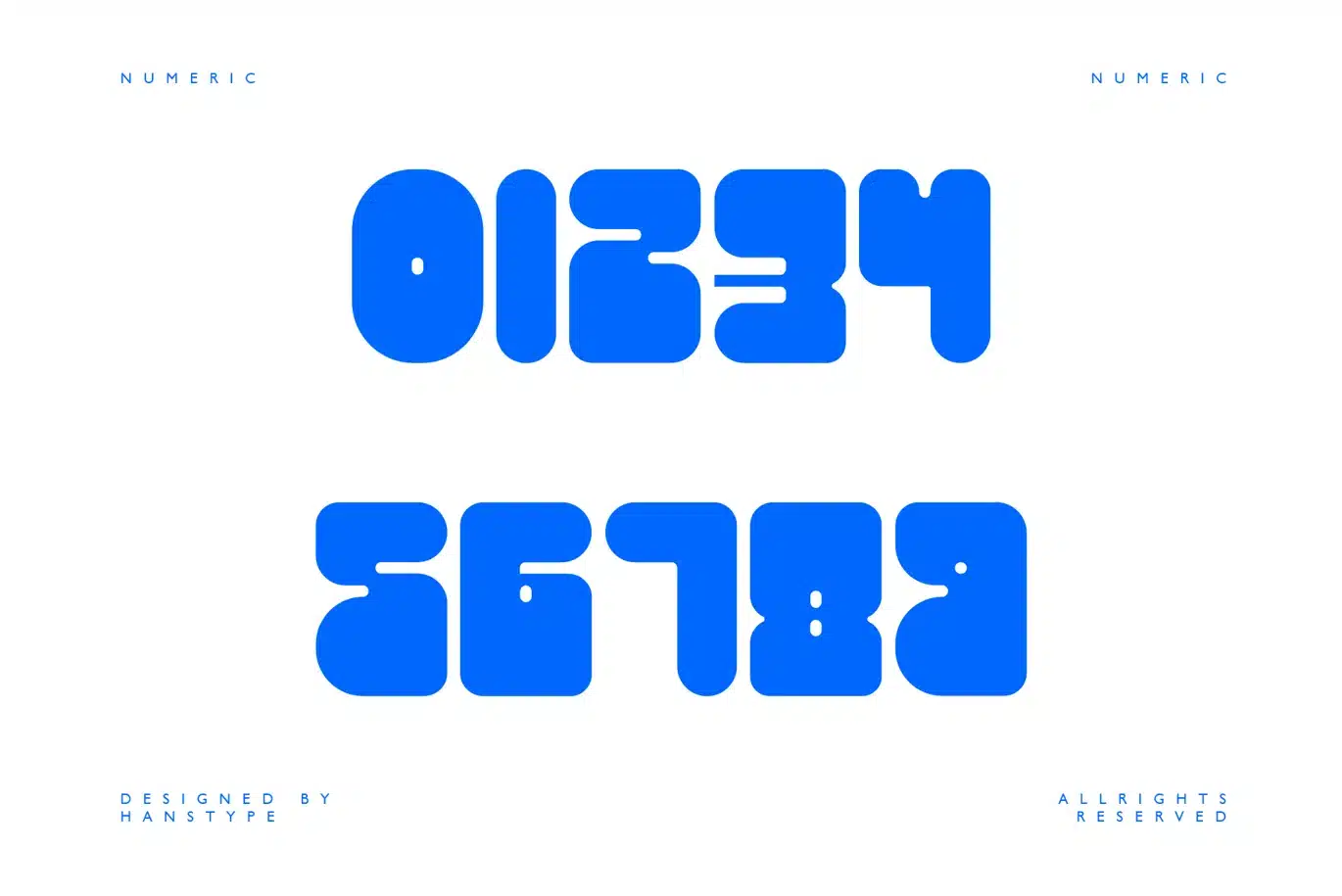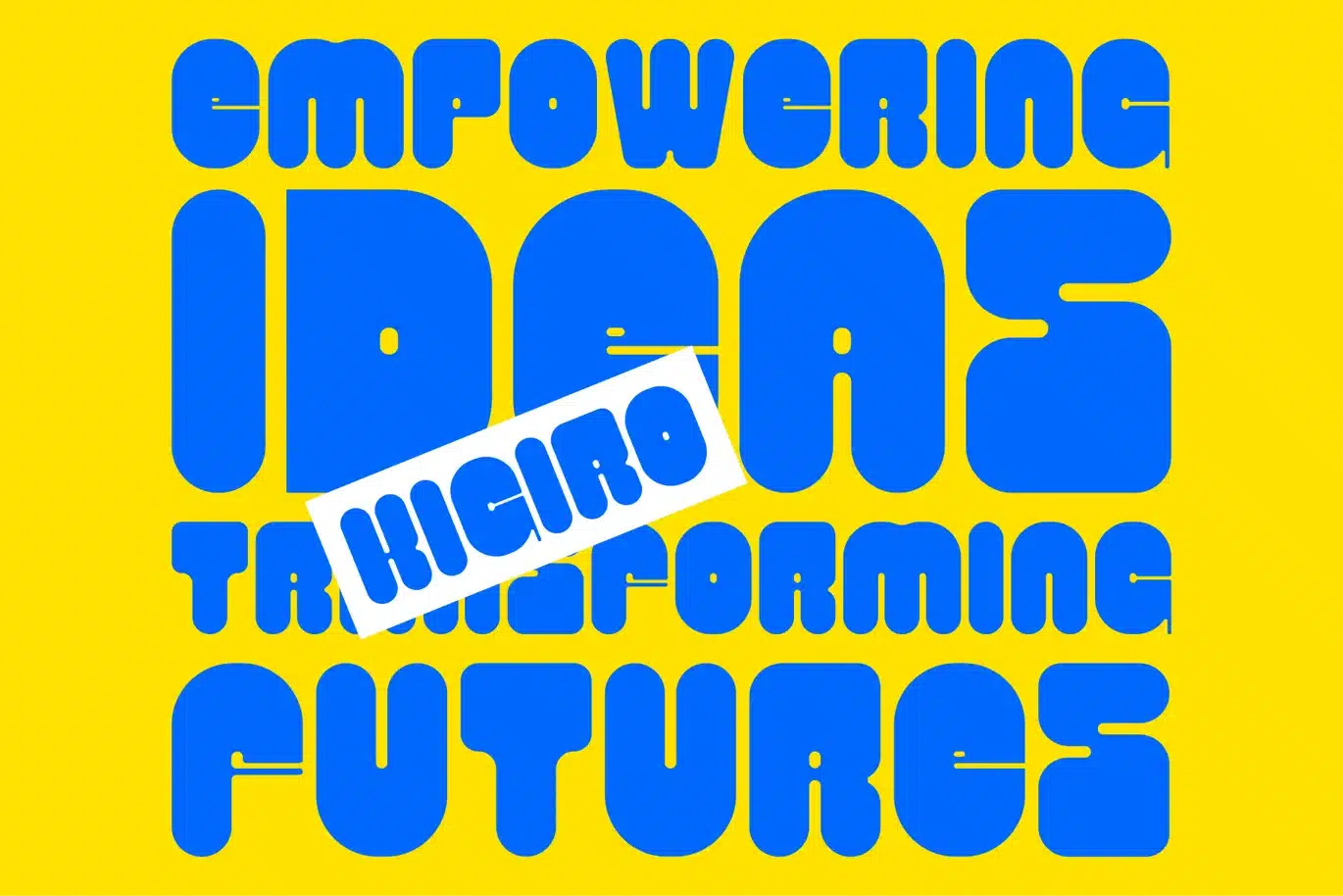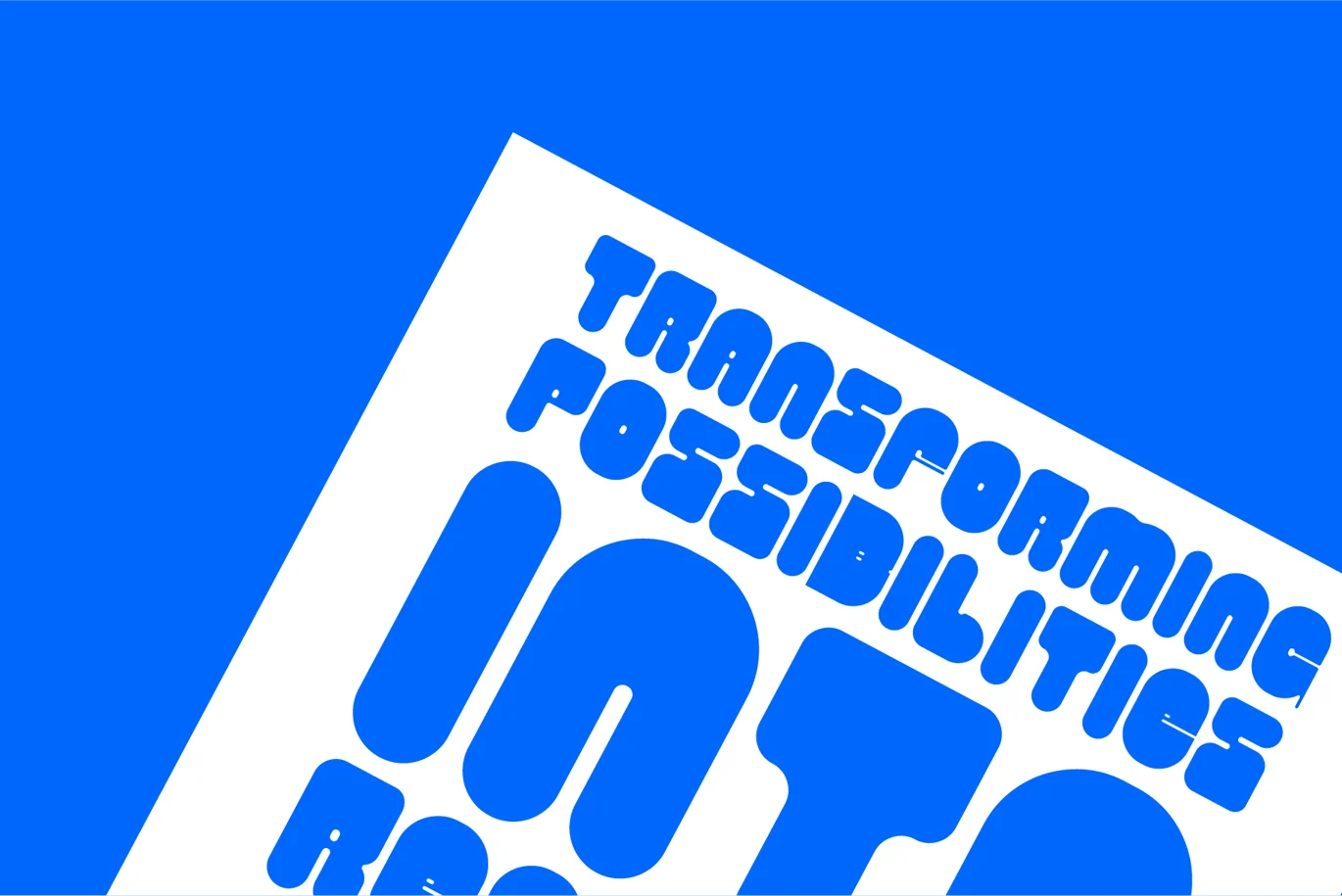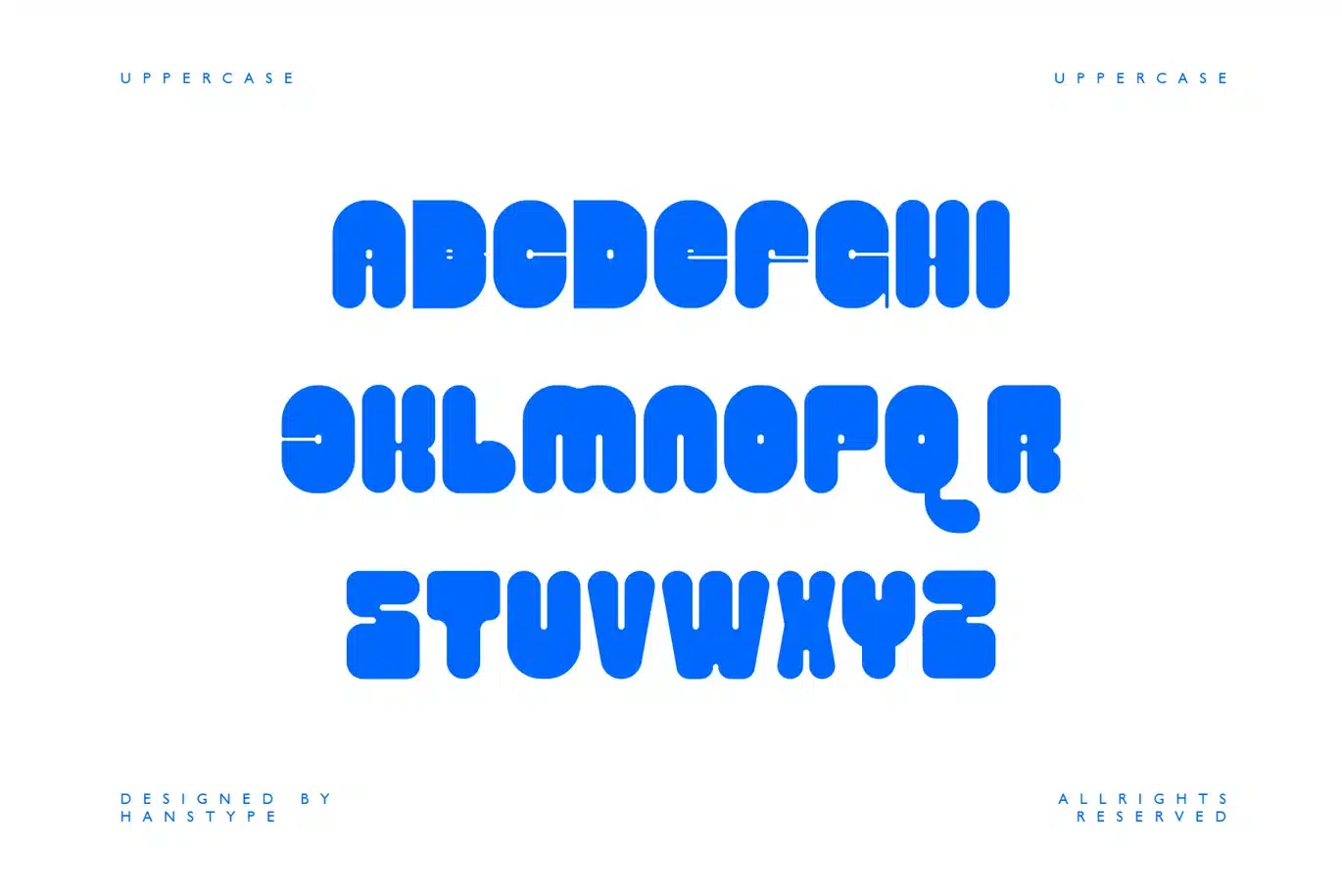
Kigiro is a bold font with a rounded concept, designed to offer a perfect blend of strength and approachability. Its bold weight ensures high visibility, making it ideal for headlines, logos, and other branding materials where impact is important.